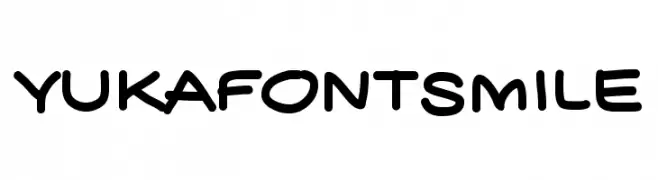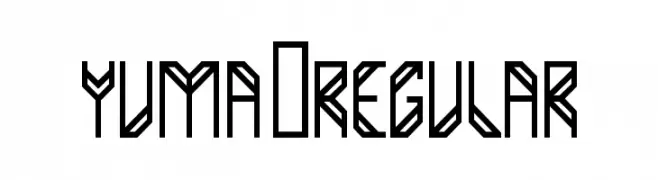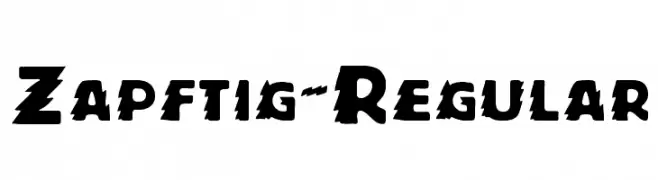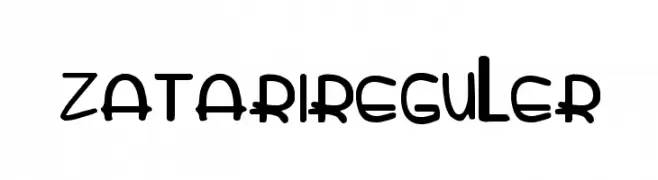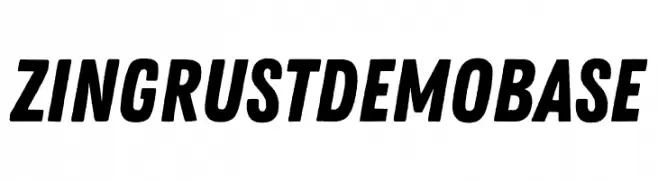
A semi-bold serif font with moderate contrast and a classic yet modern appeal.
A playful, rounded font with a bold and friendly style.
A playful, rounded font with a bold and smooth design, ideal for creative projects.
A geometric, angular font with bold, clean lines and a modern architectural style.
A bold, dynamic font with sharp, jagged edges and a strong visual impact.
A bold, geometric font with a futuristic, digital aesthetic.
A refined serif font with elegant, thin strokes and high contrast.
A pixelated, blocky font with a retro digital aesthetic.
A bold, modern font with a slightly condensed width and strong presence.